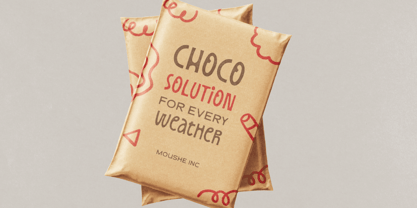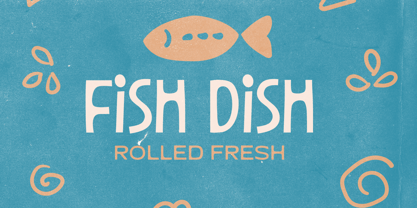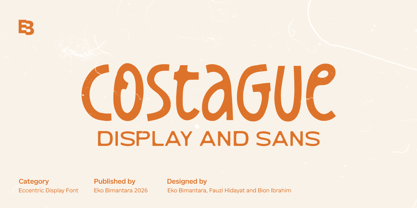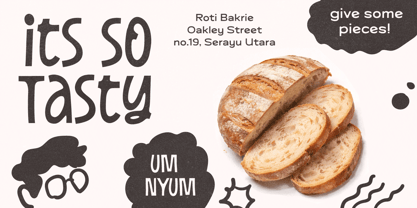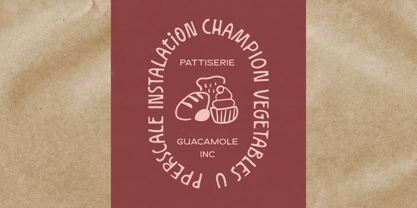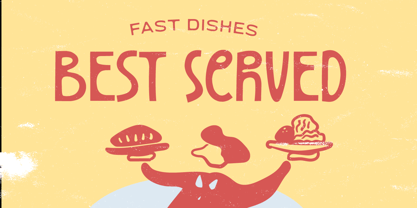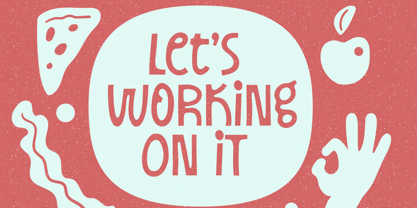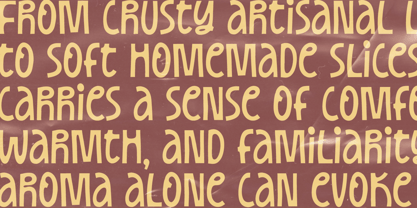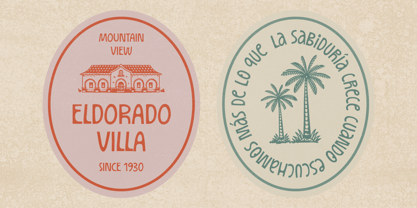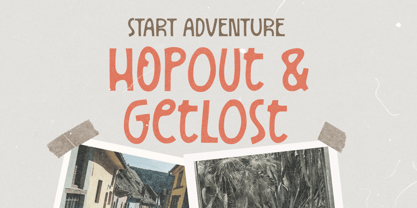
Costague
by Eko Bimantara
The Costague Font Family was designed by Eko Bimantara, Biyono Ibrahim and published by Eko Bimantara. Costague contains 2 styles and family package options. More about this family
Costage is an eccentric display font duo that pairs a distinctive display style with a clean sans companion. Designed with semi-condensed letterforms, Costage delivers a unique balance of expressiveness and structure, creating a visual character that feels playful yet refined. Its unconventional details bring a sense of joy and personality. Perfectly suited for branding, product packaging, eye-catching headlines, and print applications, Costage stands out in creative projects that demand character and memorability. Whether used boldly in display settings or paired harmoniously with its sans counterpart, Costage offers designers a flexible typographic system for expressive and impactful visual storytelling.